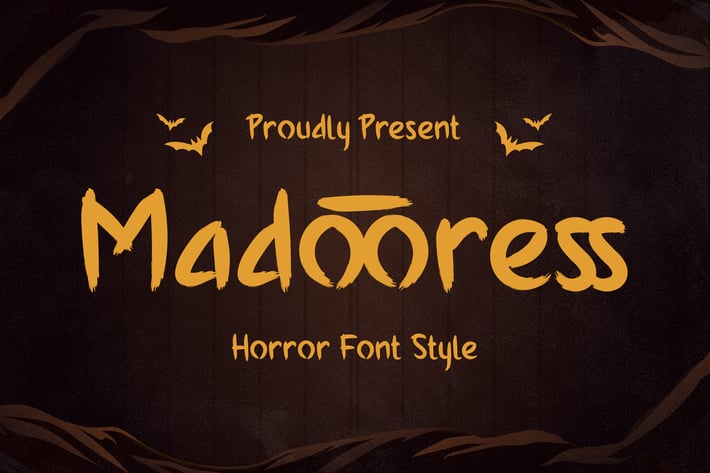
Madooress - Horror Font Style
Introducing "Madooress" - a horror font style that sends shivers down your spine and adds a chilling touch to your designs.
With its ominous letterforms and eerie details, "Madooress" embodies the essence of horror and suspense, making it perfect for Halloween-themed projects, spooky movie titles, haunted house flyers, and more.
Embrace the dark allure of "Madooress" as it effortlessly enhances your creations. With its sinister style and haunted vibes, this font sets the stage for terrifying tales and bone-chilling adventures.
Step into the realm of horror typography with "Madooress" and let your designs unleash their spine-tingling potential.